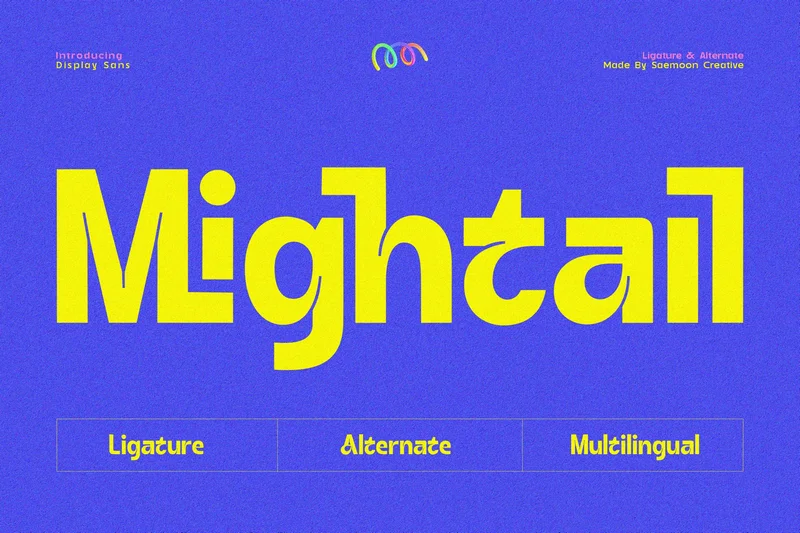
Mightail
Mightail is a display sans-serif font that combines bold shapes with modern inktrap details, delivering a strong and distinctive visual presence. Its upright, solid letterforms with sharp-cut edges offer an industrial yet contemporary aesthetic.
This font includes two styles — Regular and Oblique — providing flexibility for a wide range of design applications. With a variety of ligatures and alternate characters, Mightail adds a dynamic and creative flair to any text, making it ideal for headlines, branding, editorials, and other visual projects.
Alternates & Ligatures
Punctuation & Symbols
Includes Regular & Oblique Styles
Mightail is the perfect choice for designers seeking a bold typeface with a modern, futuristic touch.